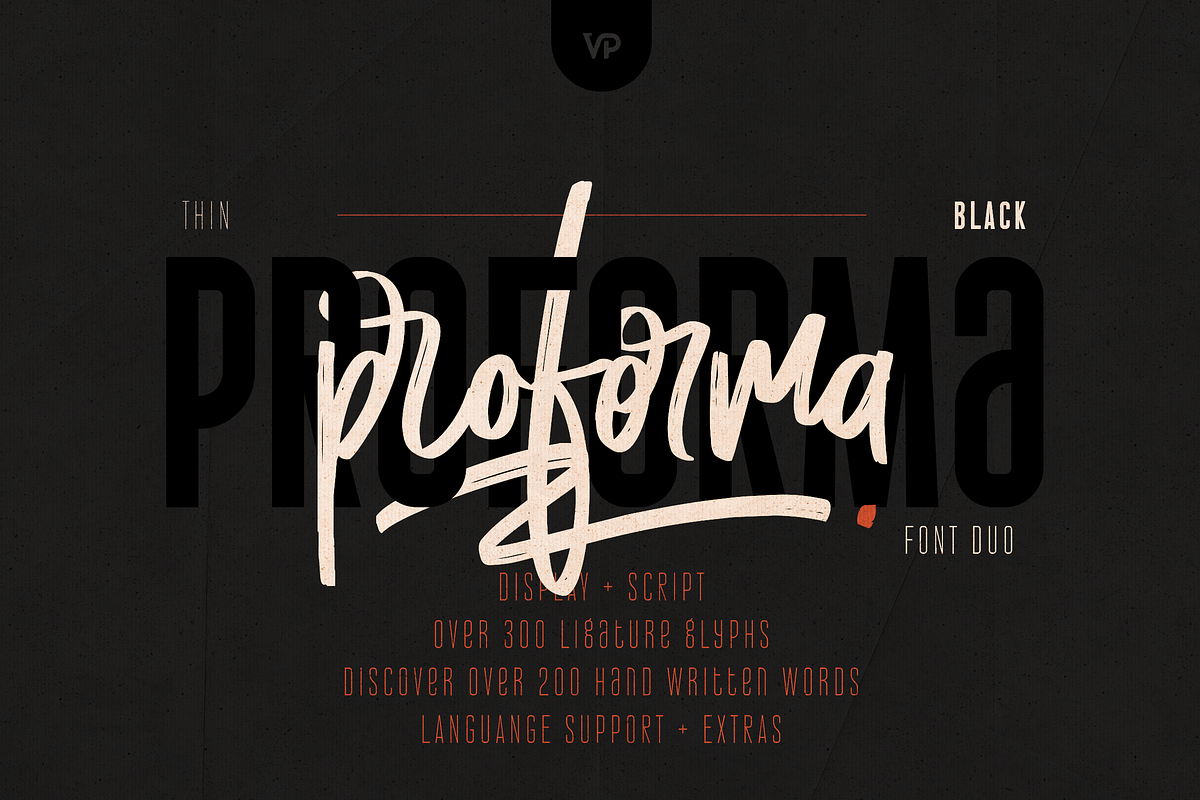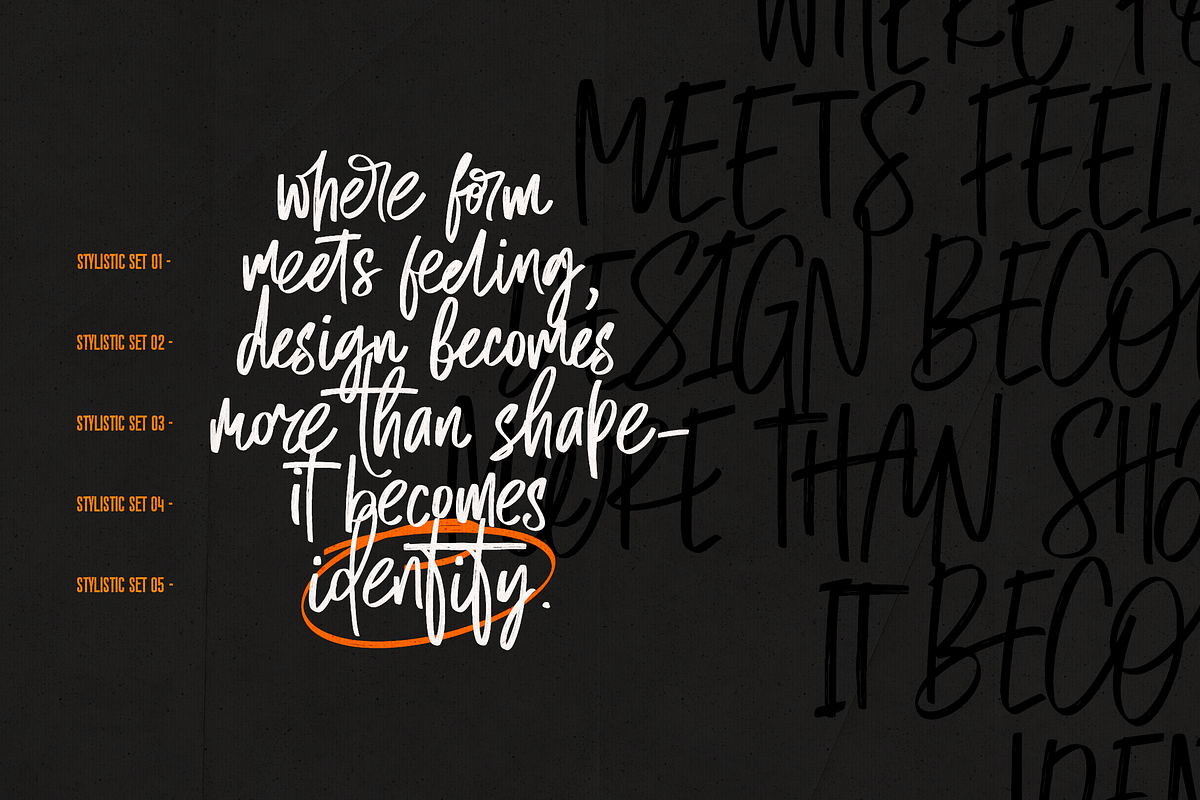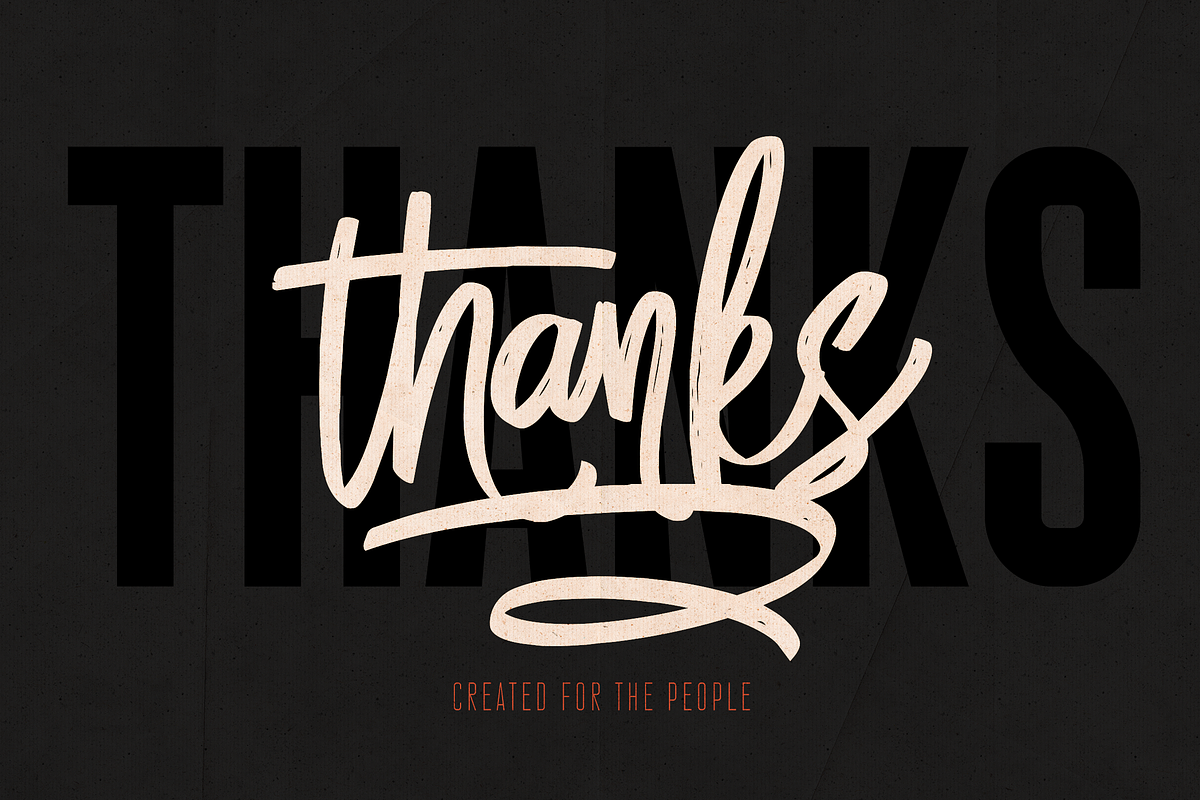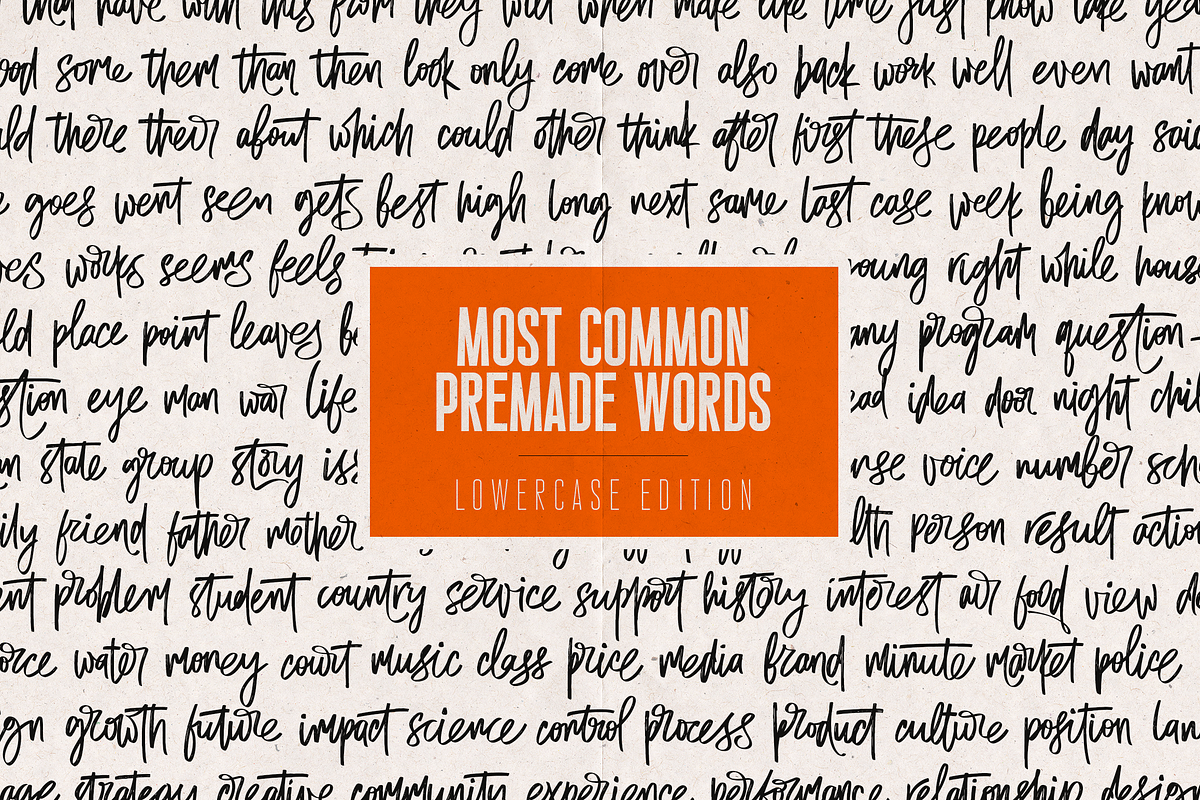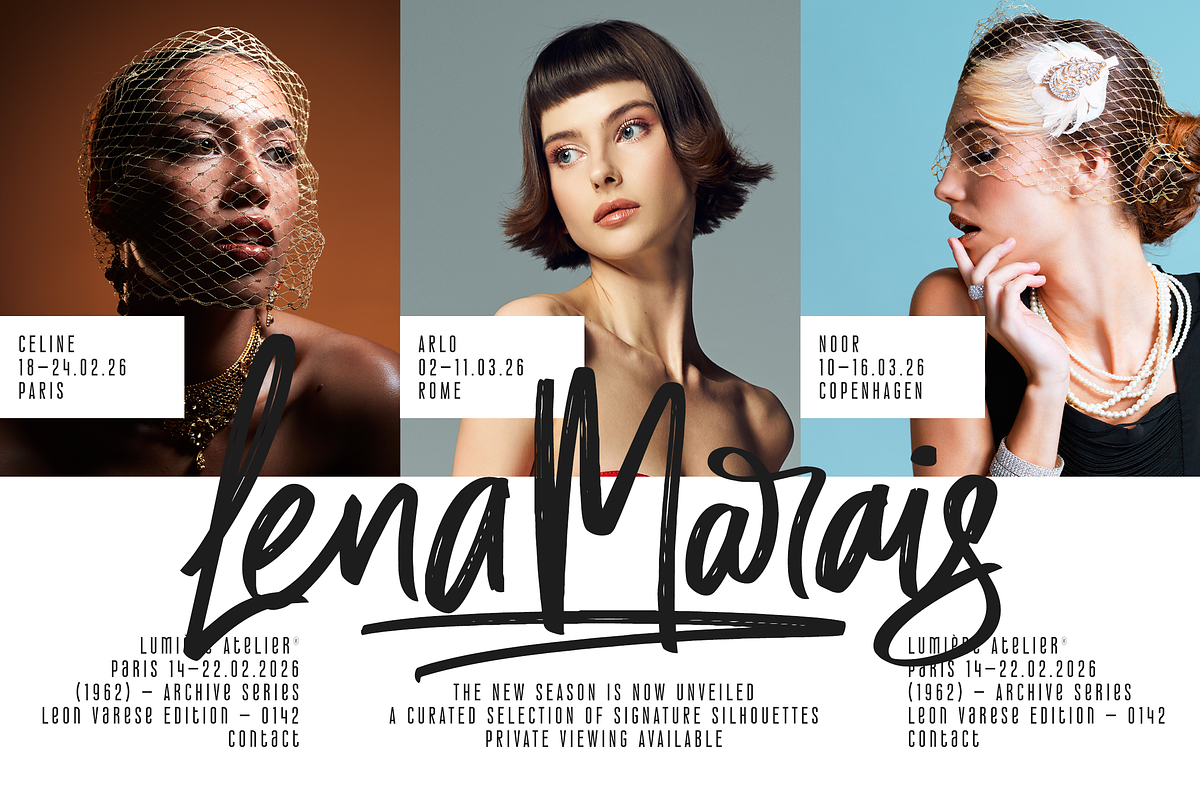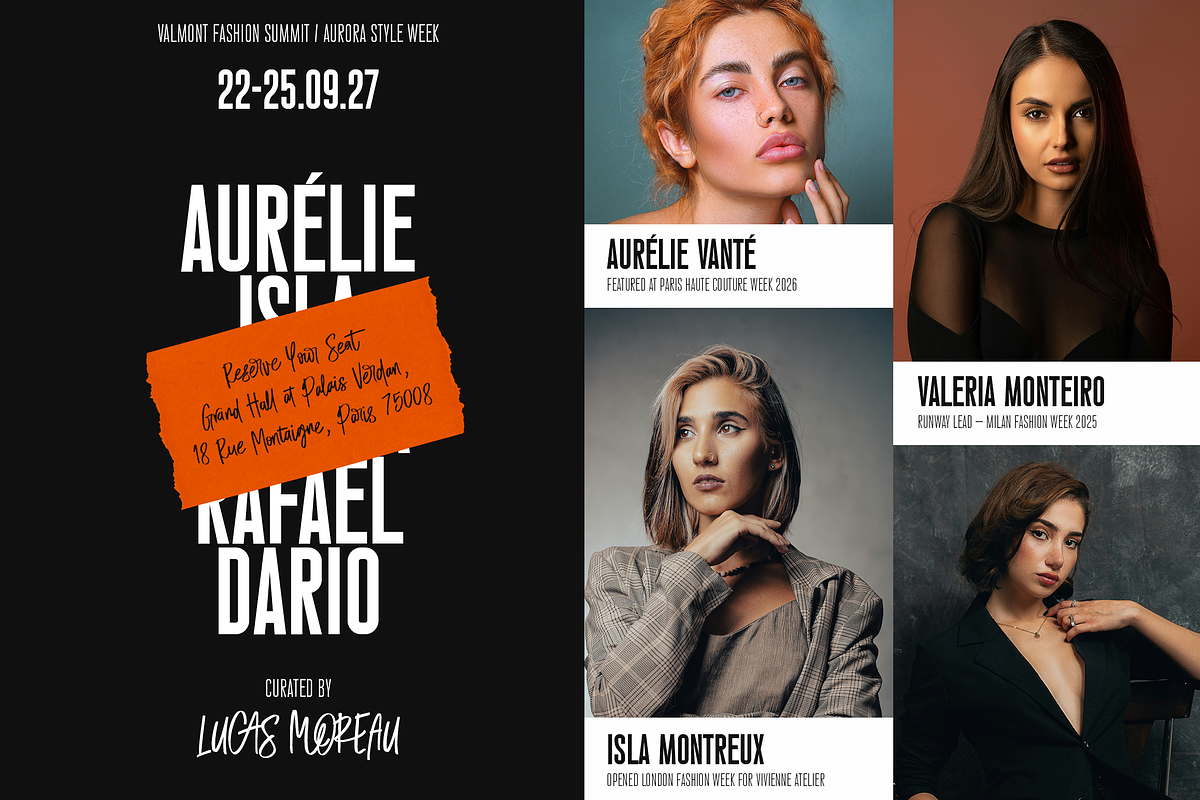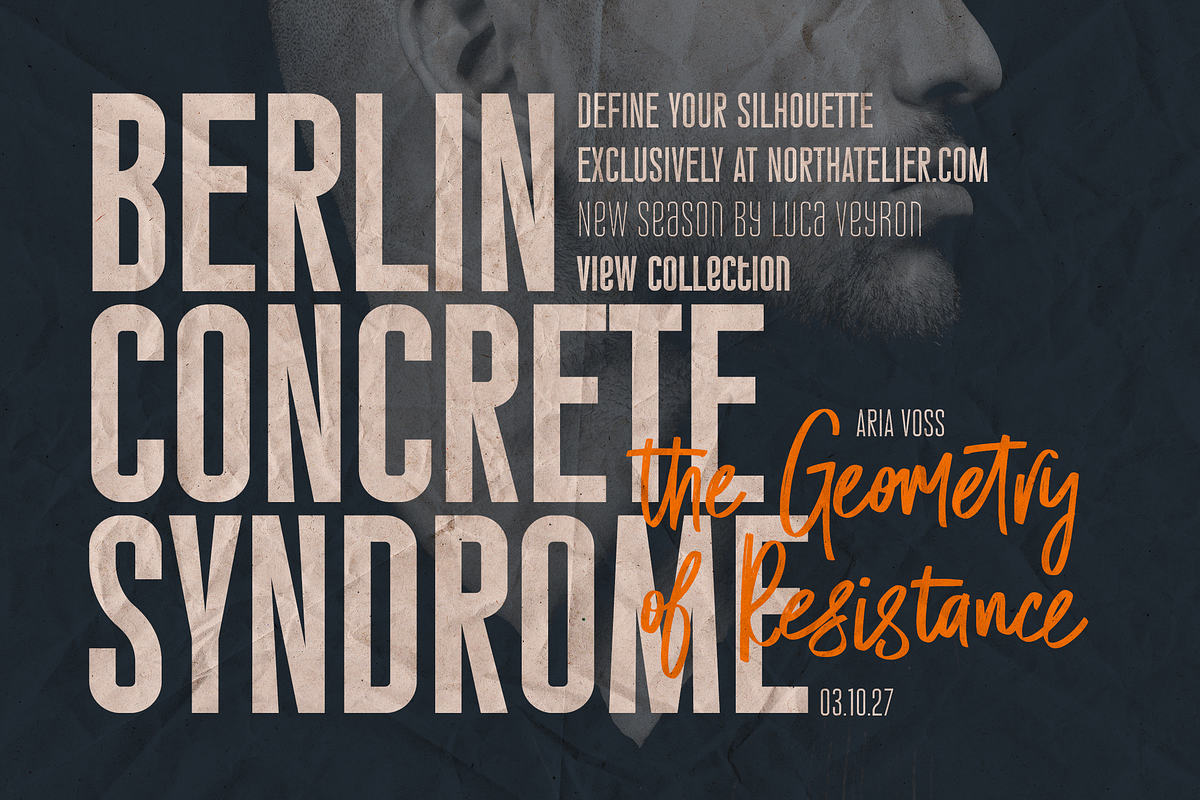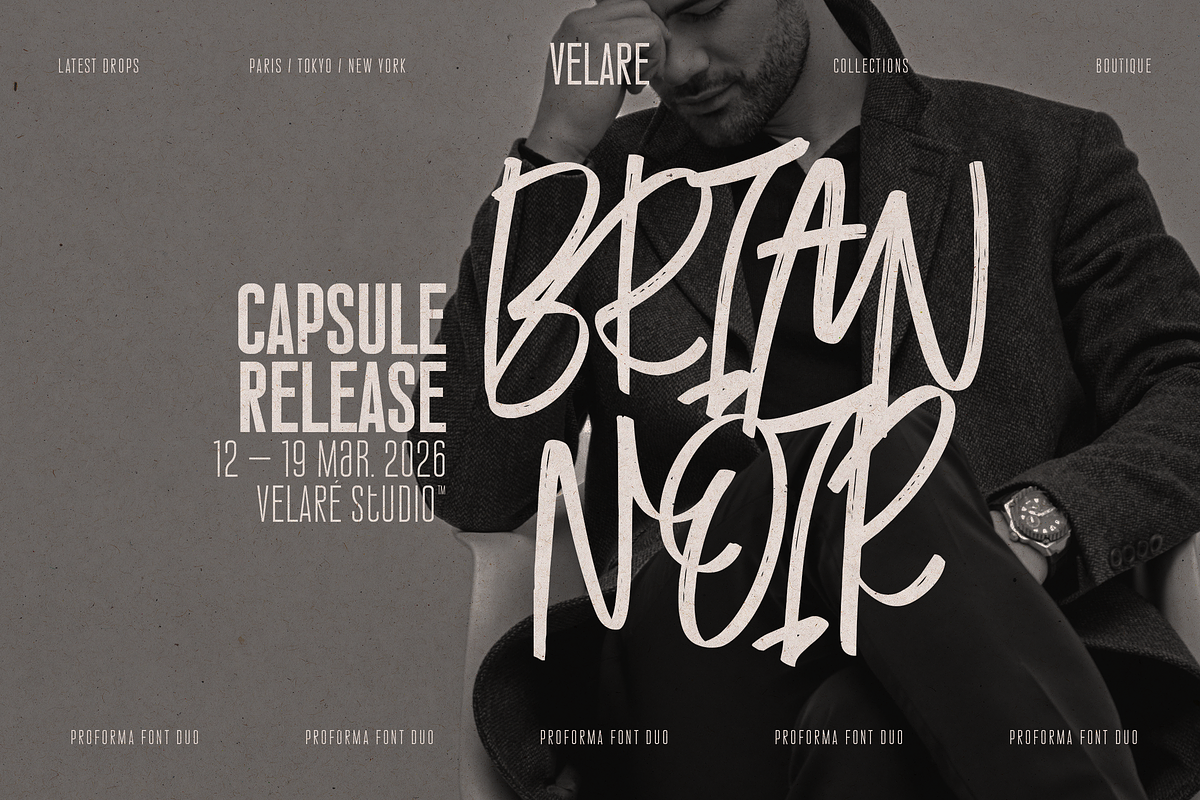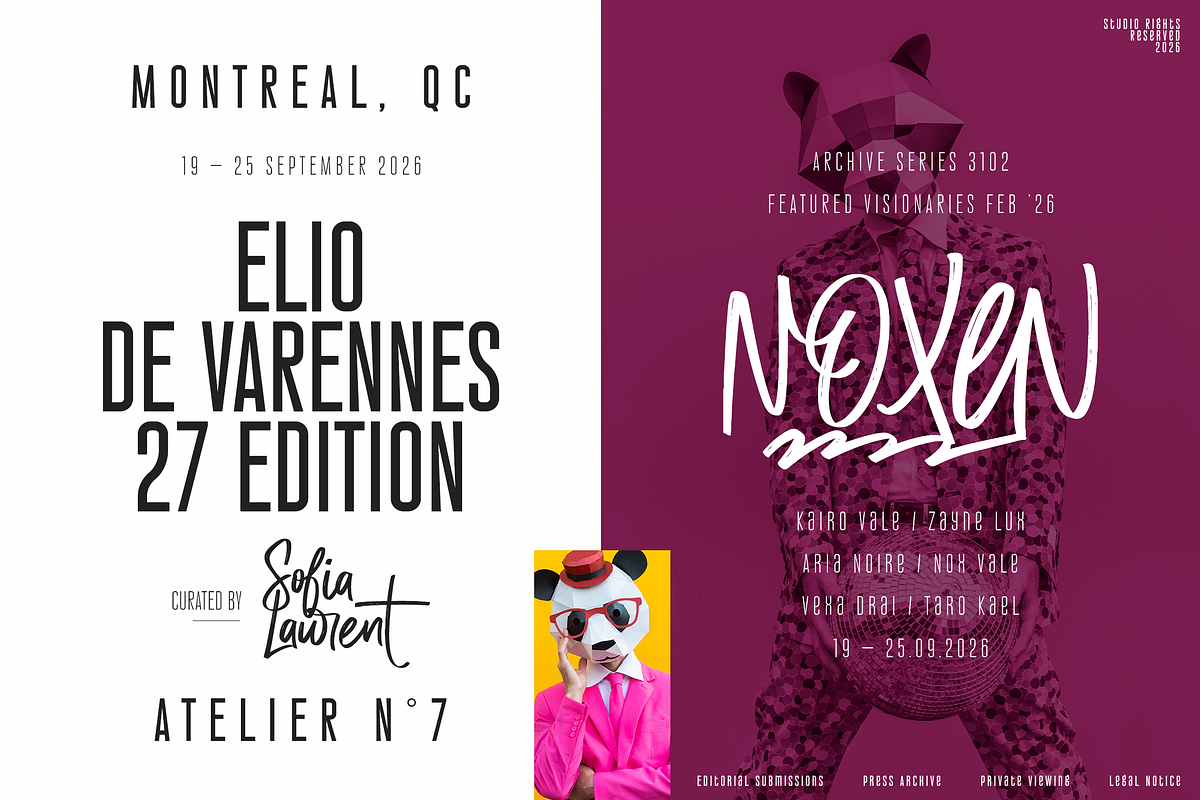
Proforma – Display & Script Font Duo
Proforma – Modern Display & Script Font Duo
Proforma is a powerful and expressive font duo combining a bold, high-impact display sans with a dynamic handwritten script - crafted for brands that want to stand out with confidence, contrast, and personality.
Designed for editorial layouts, fashion campaigns, luxury branding, film posters, social media graphics, and premium packaging, this duo delivers the perfect balance between structure and spontaneity.
- Editorial headlines
- Fashion branding
- Logo design
- Posters & cinematic titles
- Website hero sections
Script Font (Advanced OpenType Features)
An expressive handwritten script featuring:
- 5 full stylistic sets (A–Z)
- 300+ ligatures
- 200+ pre-made most common words
- Natural alternates & flowing connections
This gives you endless layout variations and effortless realistic lettering without manual adjustments.
Professional OpenType Power
The script font is engineered for designers who want speed and flexibility:
- Instant handwritten words for branding & social posts
- Smooth automatic ligatures
- Multiple character variations for authentic hand-drawn feel
Global Language Support
All fonts in the duo support 87+ languages, making it ideal for international branding and global campaigns.
- Fashion & luxury branding
- Magazine layouts
- Streetwear & capsule releases
- Film posters
- Event promotions
- Logo design
- Social media campaigns
- Packaging & merchandise
Why Proforma?
- Strong modern structure + expressive script contrast
- 9-weight professional display system
- 300+ ligatures for natural flow
- 200+ ready-to-use handwritten words
- 5 stylistic sets (A–Z)
- Multi-language support
- High-end editorial aesthetic
Proforma isn’t just a font duo — it’s a complete branding system designed to help you create bold, memorable, and premium visual identities with ease.